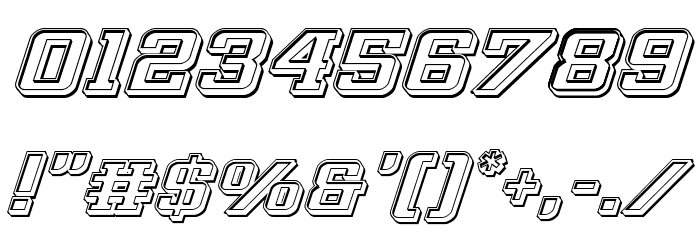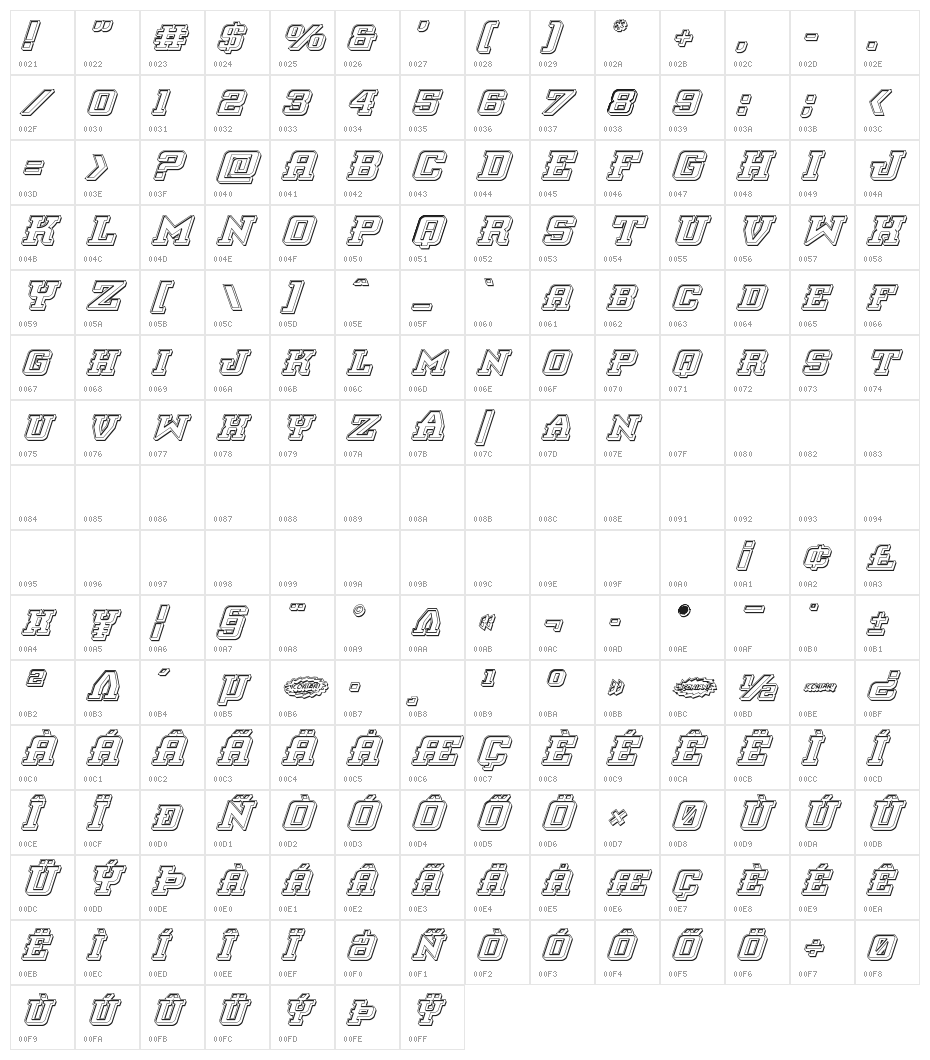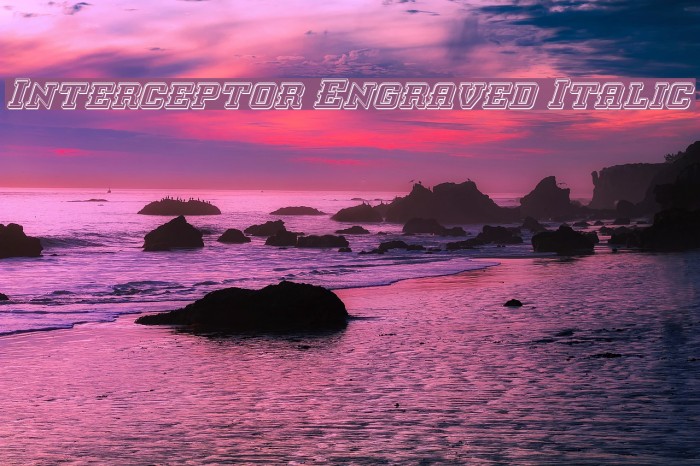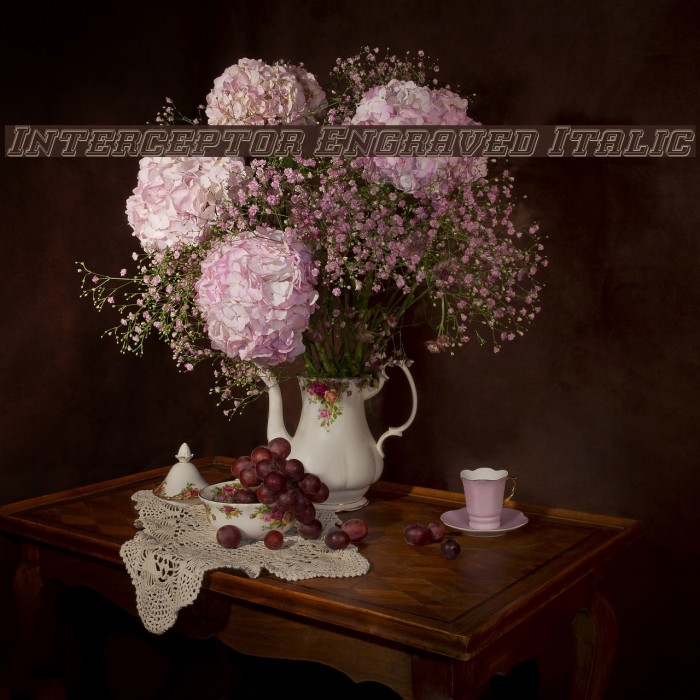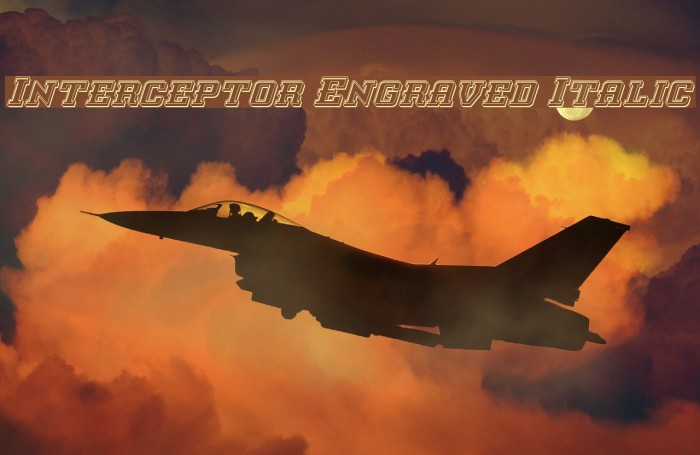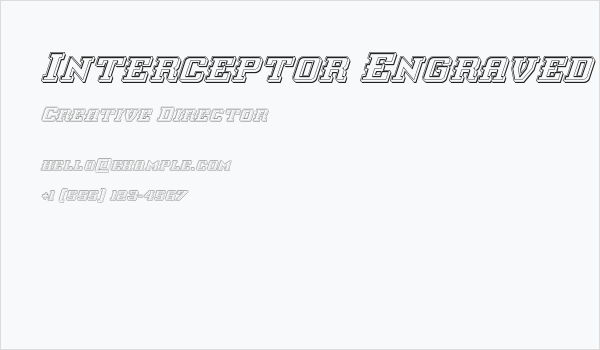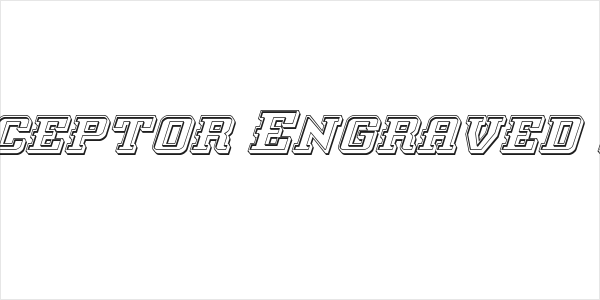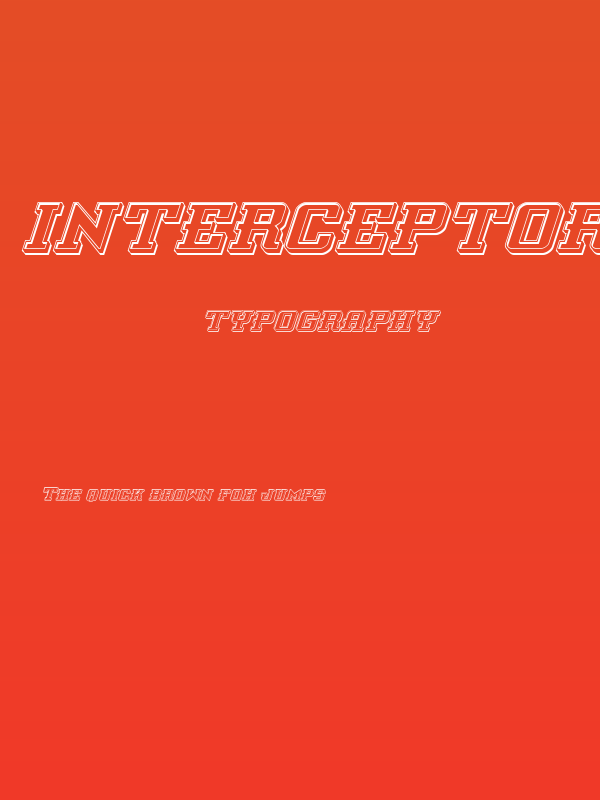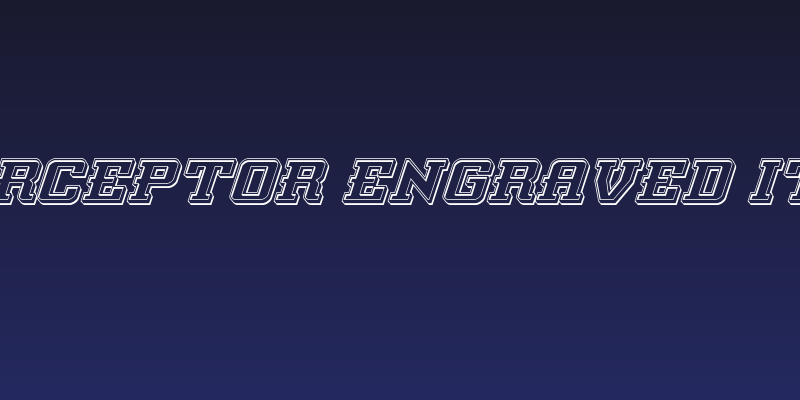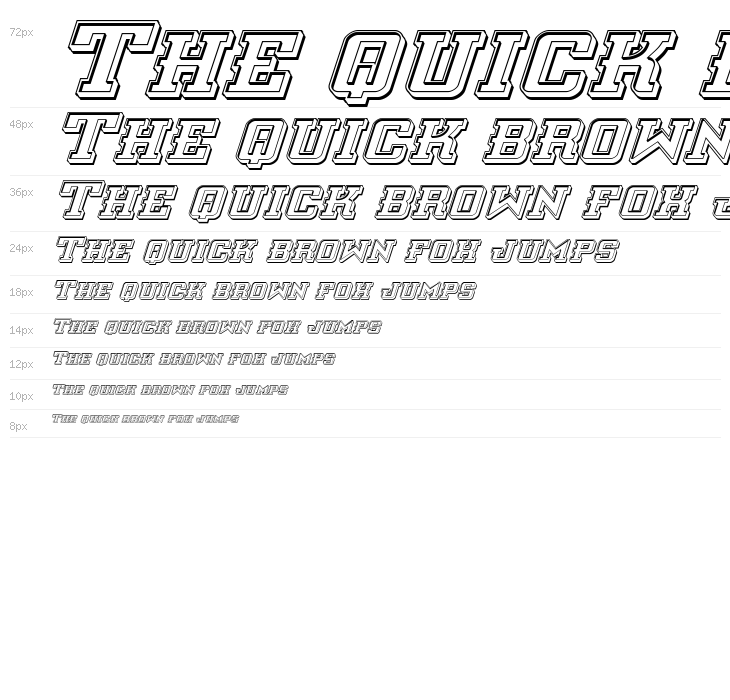
Interceptor Engraved Italic Font
Interceptor Engraved Italic Description
This font features a bold, engraved style with a distinct italic slant, giving it a dynamic and impactful appearance. The characters are outlined with a double line, creating a three-dimensional effect that adds depth and sophistication. The uppercase and lowercase letters maintain a consistent style, with sharp angles and clean lines that enhance readability. The numerals and special characters follow the same engraved design, ensuring uniformity across all text elements. This font's unique style makes it suitable for projects that require a strong visual presence.
| Proposed Projects | Ideal for branding, posters, headlines, and any design needing a striking and sophisticated look. |